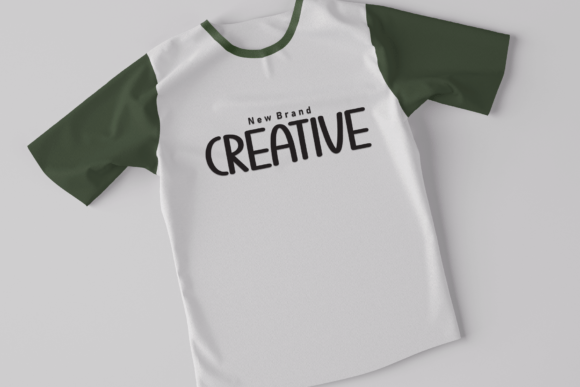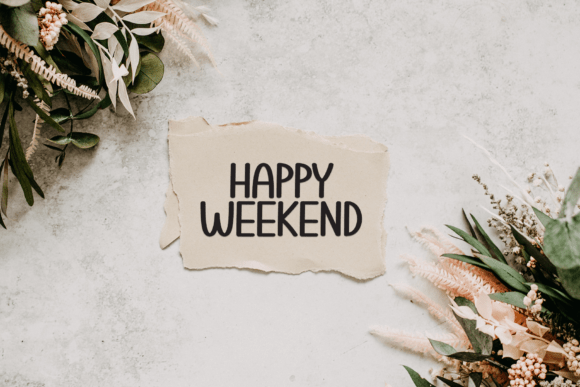
Introduction to Child Smart Font
This captivating typeface, brimming with warm and inviting letterforms, instantly injects an element of merriment and delight into your entire creative portfolio.
Whether you’re crafting sophisticated wedding invites or impactful greeting cards, this font is primed to fill your designs with character Allow your creative journey to flourish with this delightfully cheerful typeface, ideally suited to any design craving a touch of whimsy.
Key Features of Child Smart Font
Why Choose Child Smart Font?
Child Smart Font offers exceptional quality and versatility, making it a valuable addition to your design toolkit. Whether you’re creating for personal projects or commercial use, Child Smart Font delivers professional results.